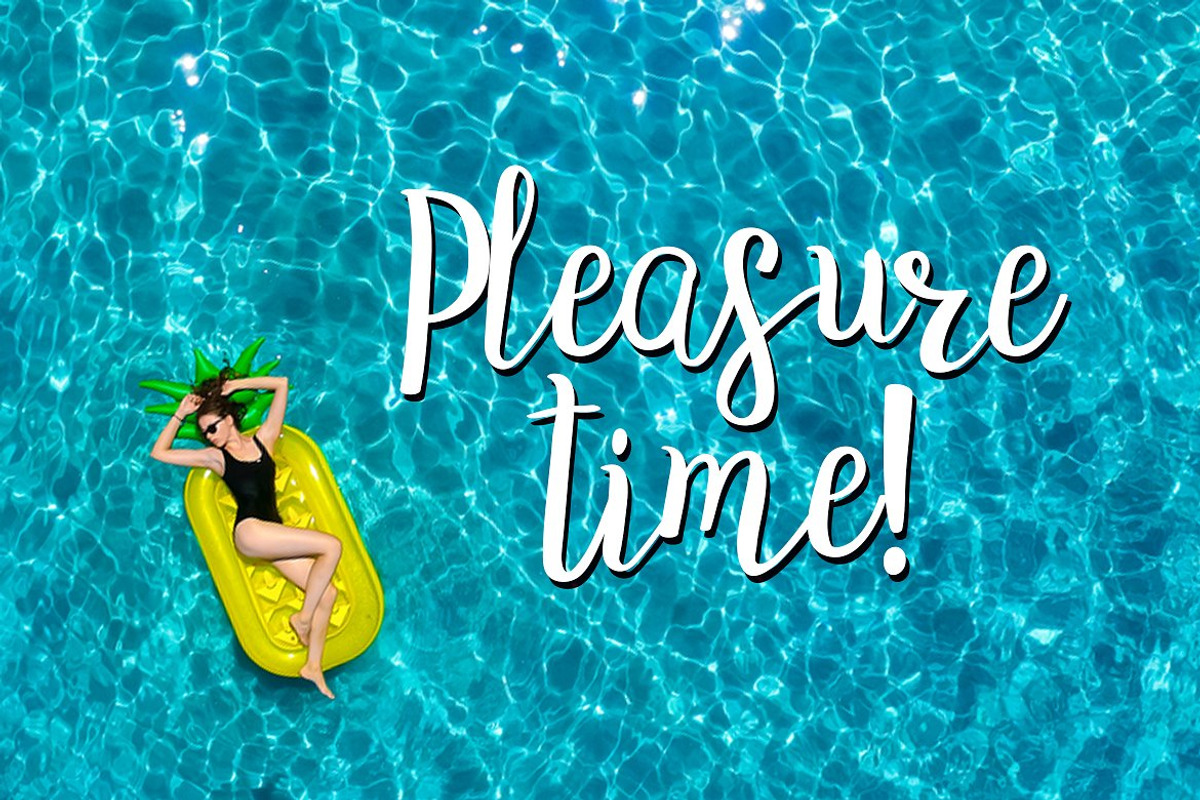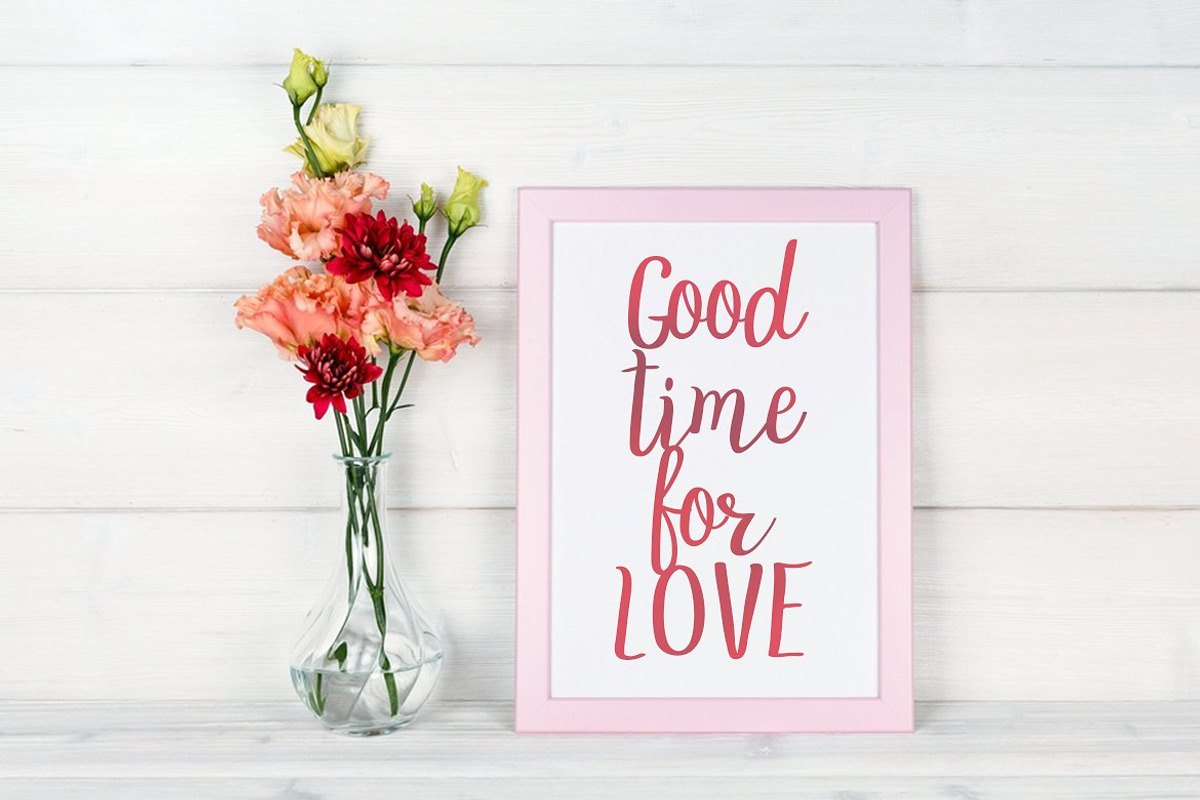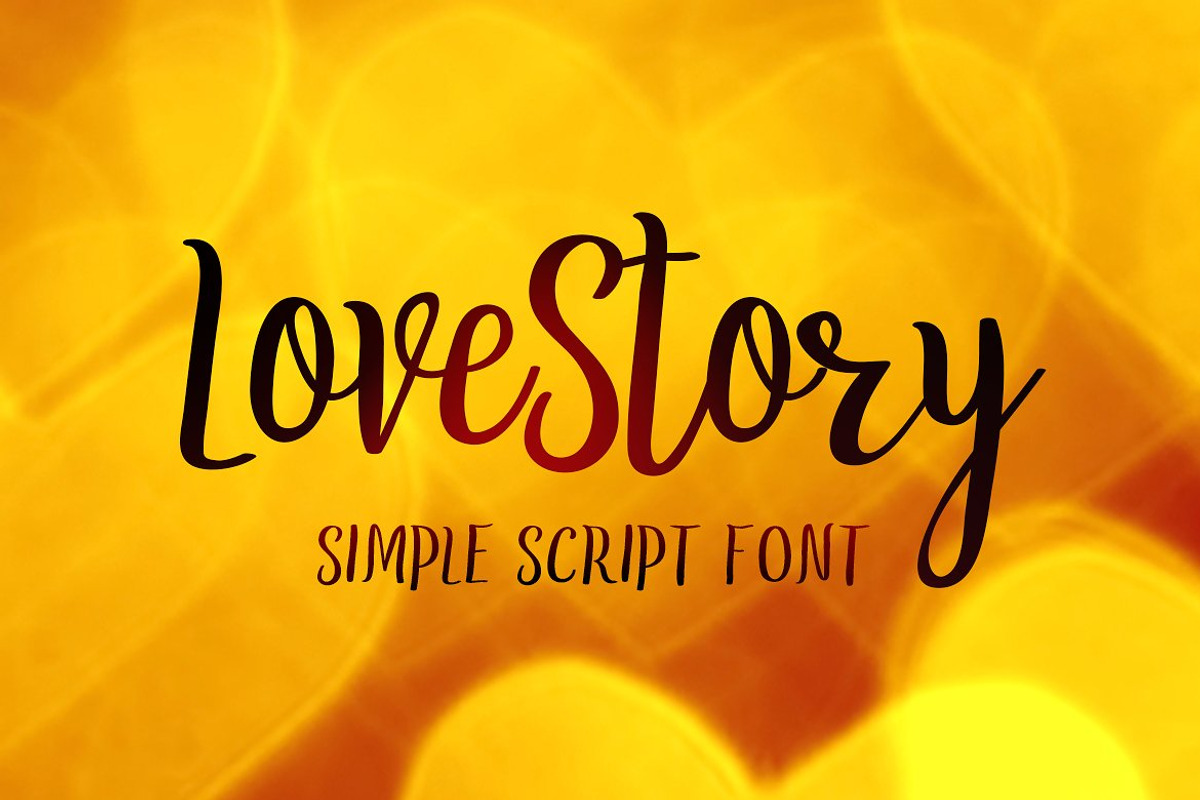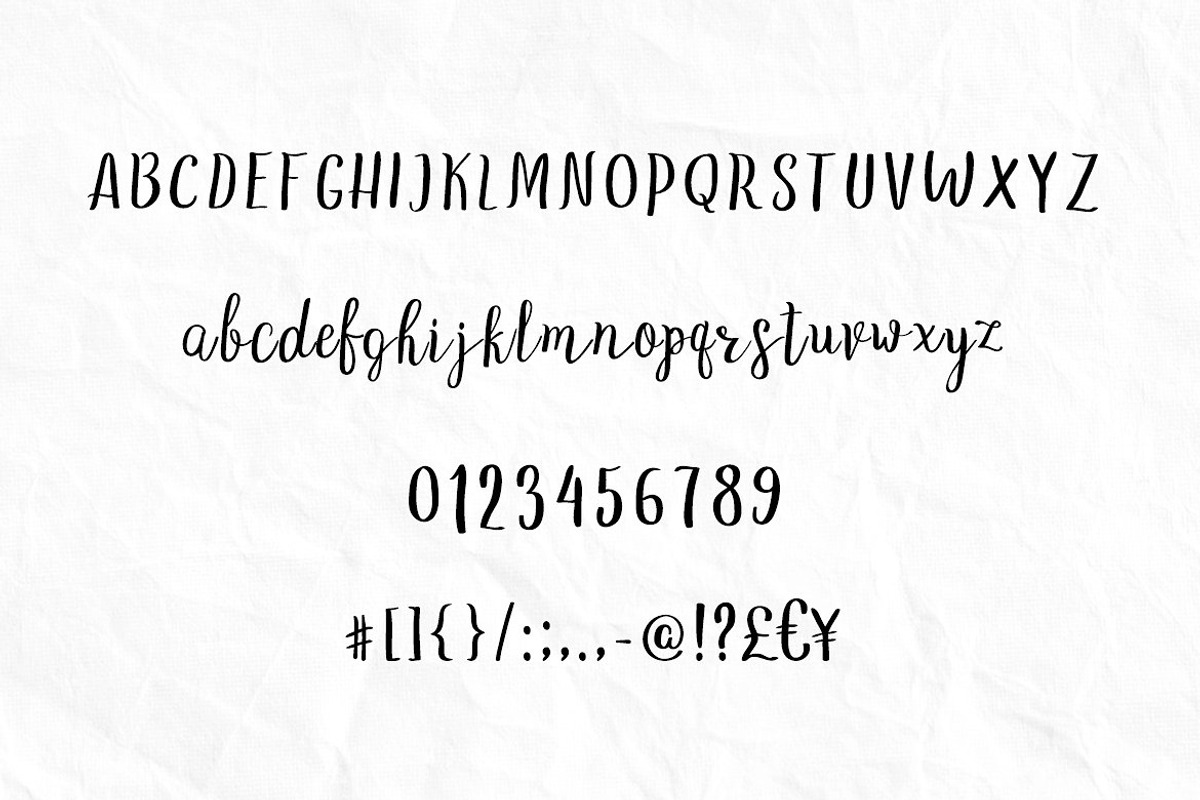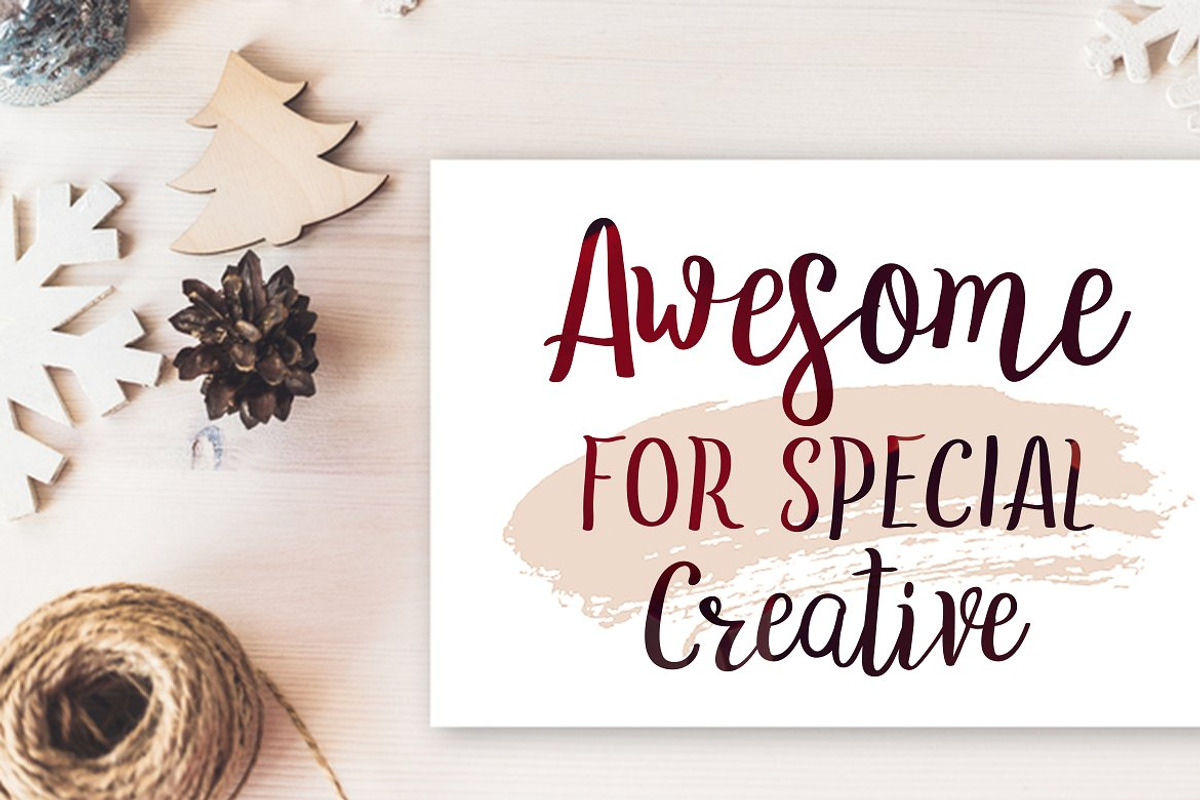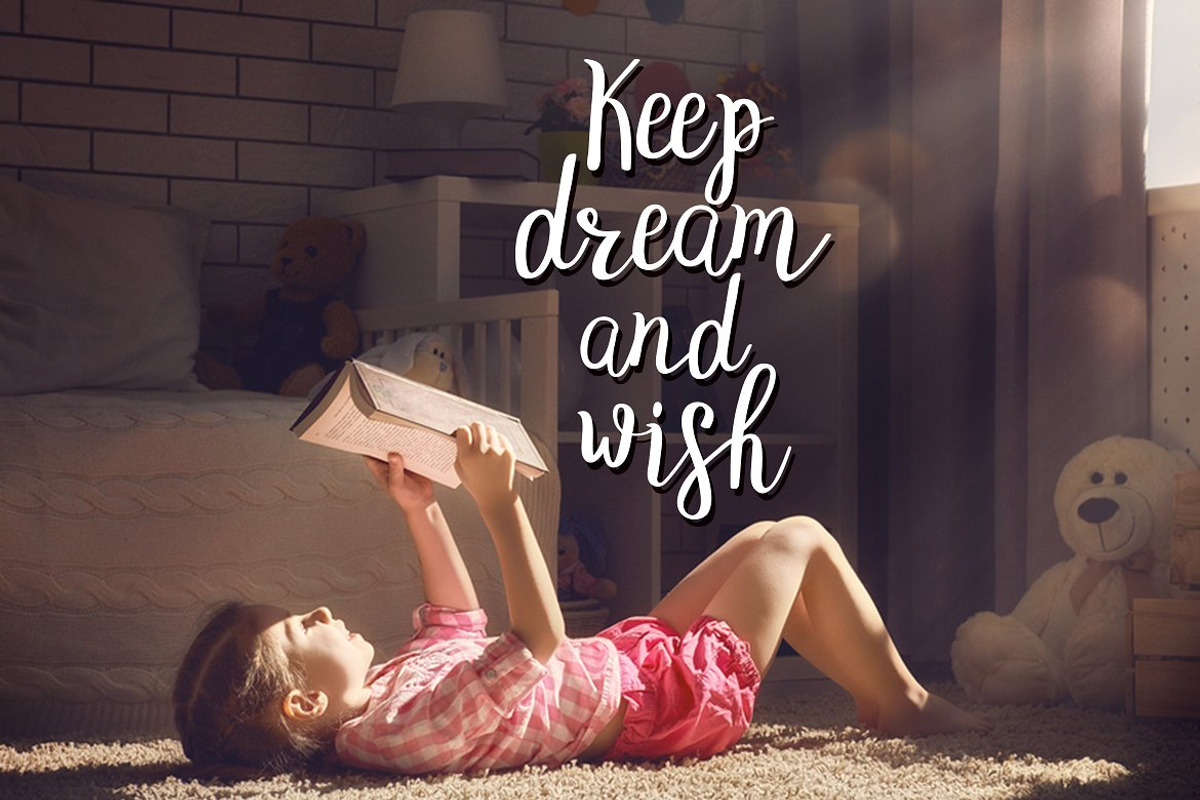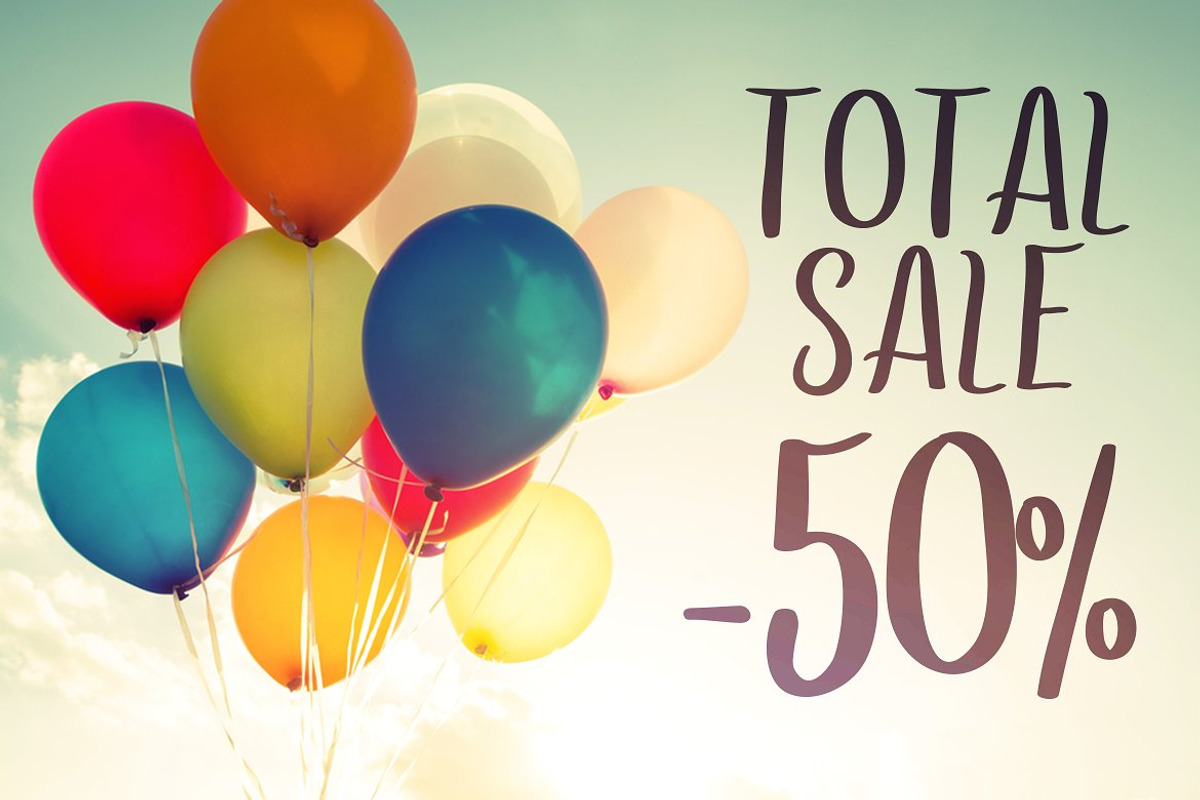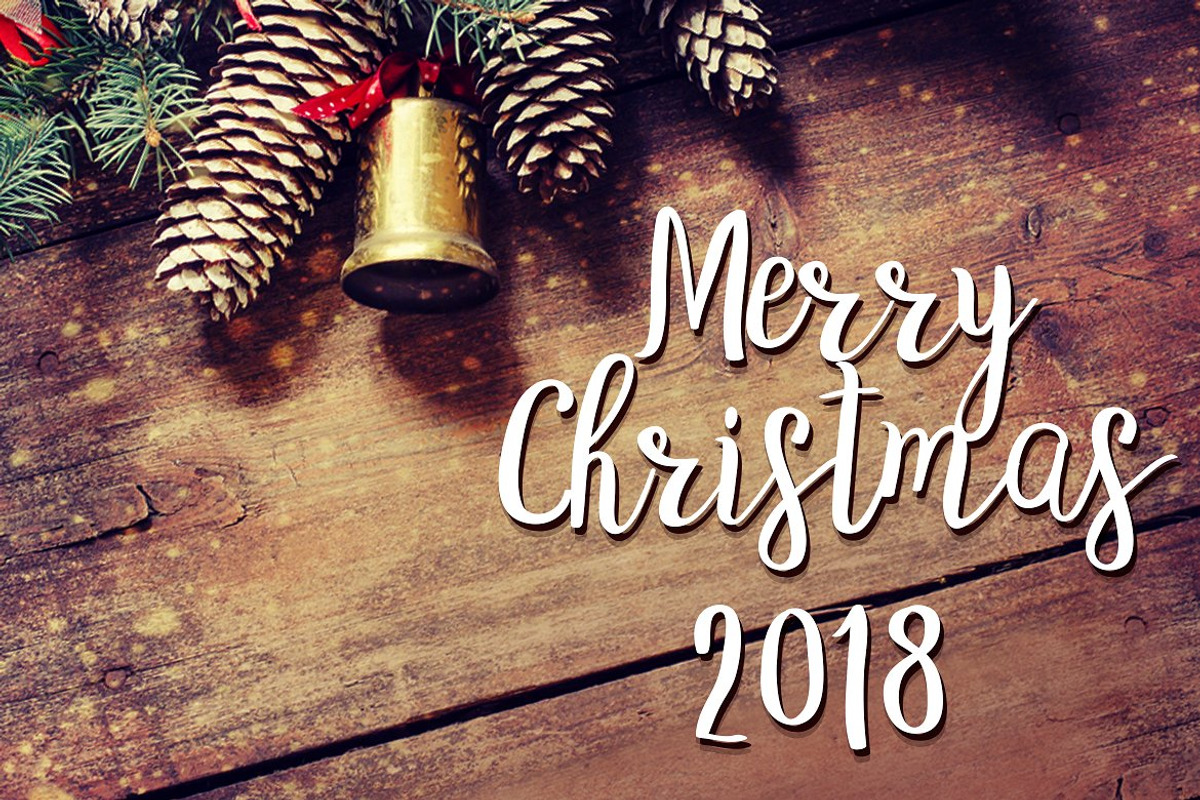
LoveStory - gentle script font
LoveStory is a gentle script font with elegant curls. Combining uppercase and lowercase letters will allow your text stand out. The font has numbers, punctuation and special character set. It works perfect to make romantic card, wedding invitations, Christmas greeting cards, and many more .
numbers & punctuation
special character set